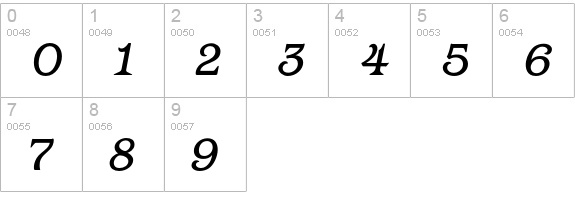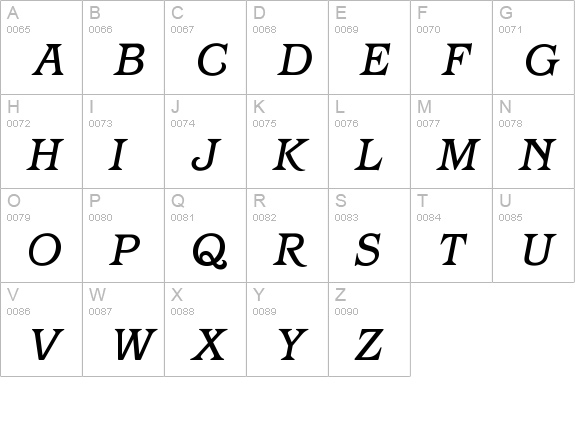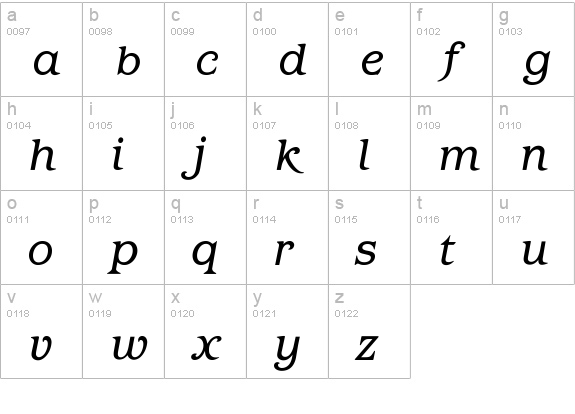
BarcelonaBookItalic Font Details
BarcelonaBookItalic is a sleek and elegant font that exudes sophistication and style. With its italicized design, this font is perfect for adding a touch of flair to any project. The BarcelonaBookItalic font features clean lines and a modern aesthetic, making it versatile for a wide range of design purposes. The best part? BarcelonaBookItalic is available for free download at FontsMarket.com. This means you can easily access this stunning font to elevate your designs without any cost. So why wait? Download BarcelonaBookItalic today and enhance your projects with its timeless appeal.